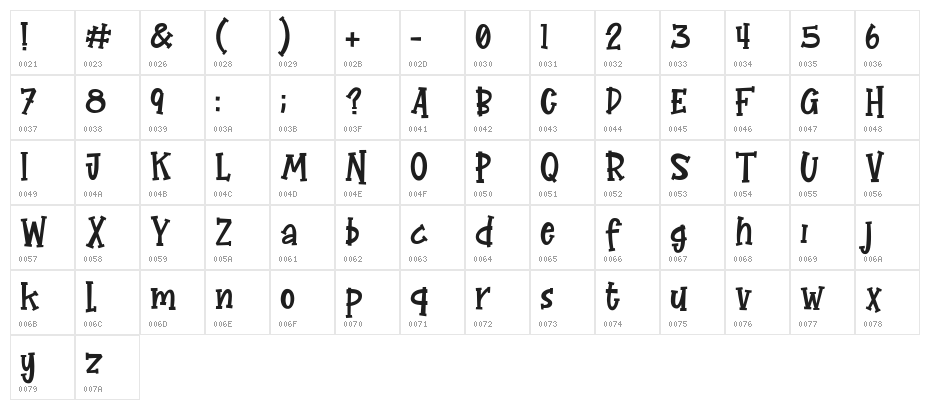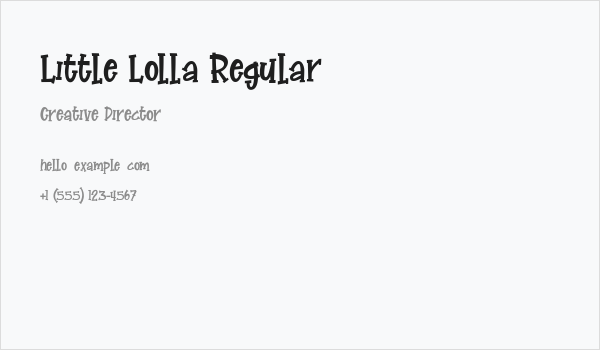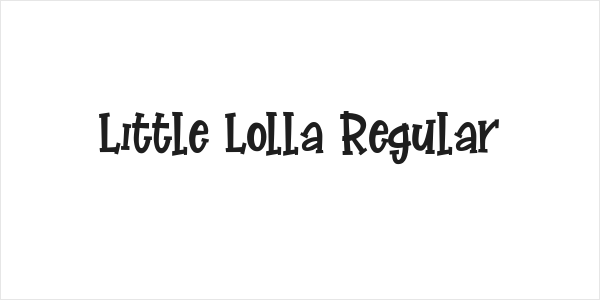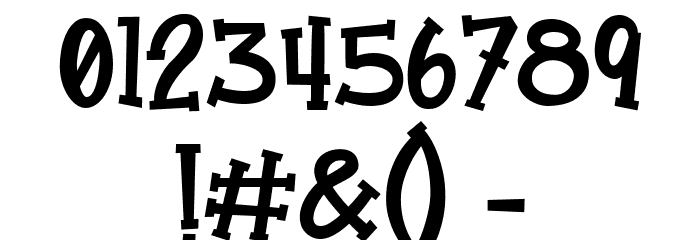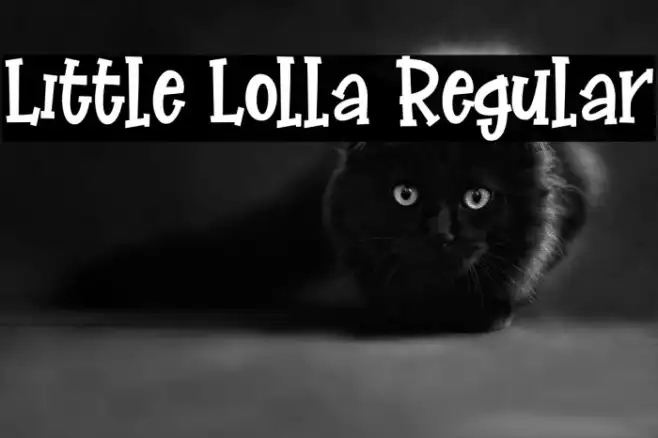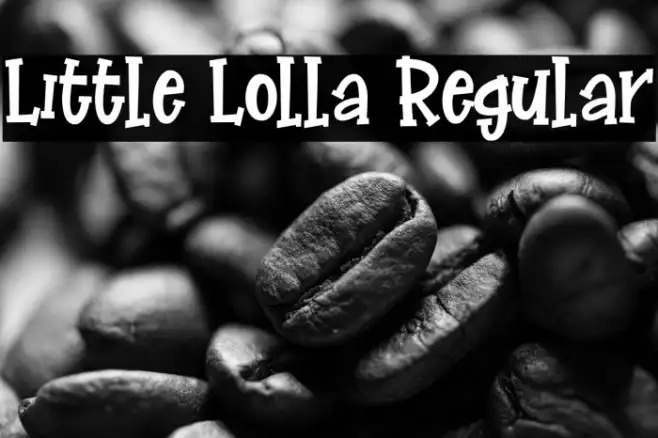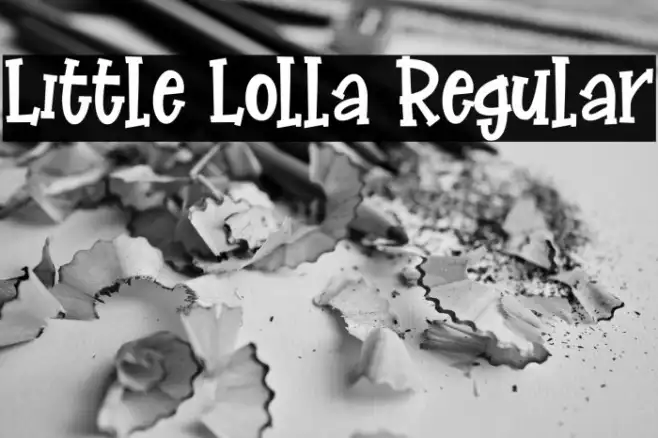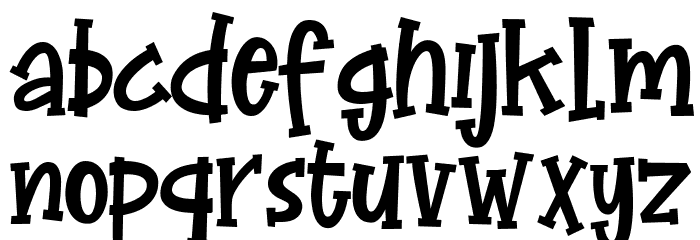
Little Lolla Regular Font
Little Lolla Regular Description
This playful and whimsical font features a hand-drawn style with exaggerated curves and a slightly uneven baseline, giving it a lively and dynamic appearance. The uppercase letters are bold and prominent, while the lowercase letters maintain a consistent style with a touch of quirkiness. The numbers are equally playful, with unique shapes that add to the font's overall charm. The special characters are creatively designed, fitting seamlessly with the rest of the font. This font's distinctive style makes it ideal for projects that require a fun and informal touch.